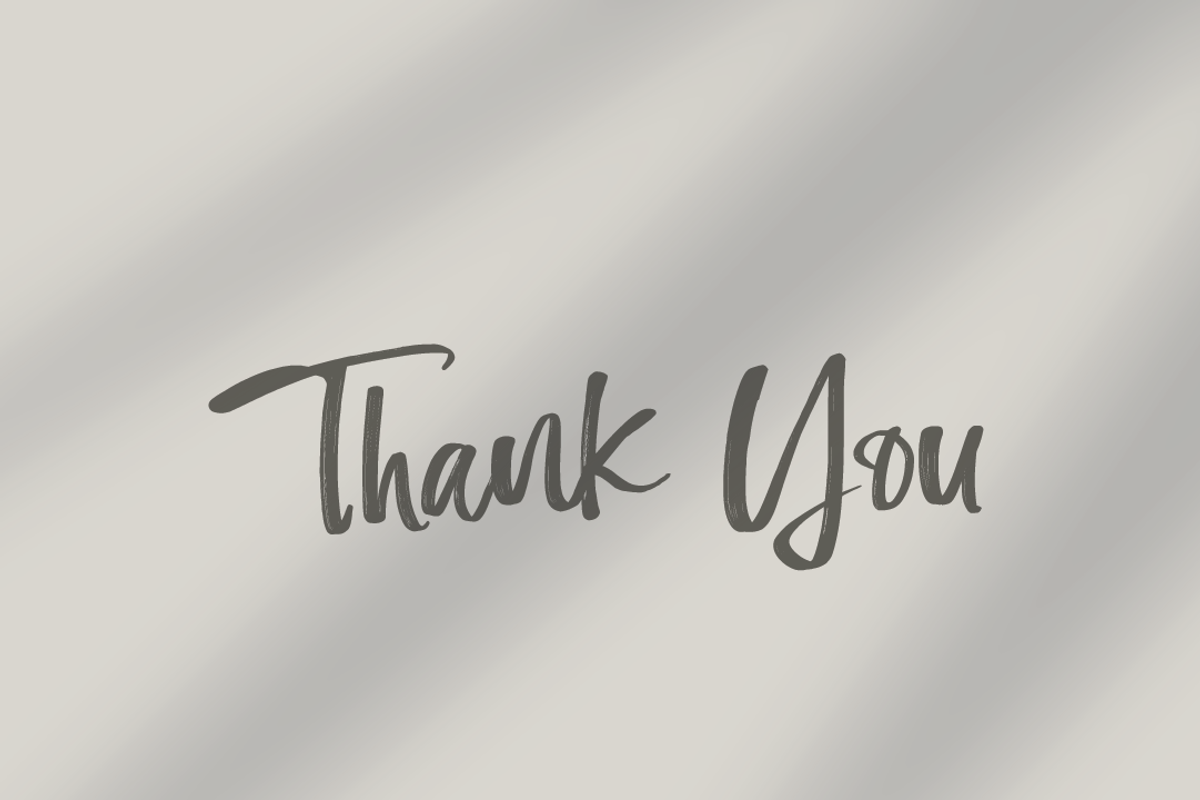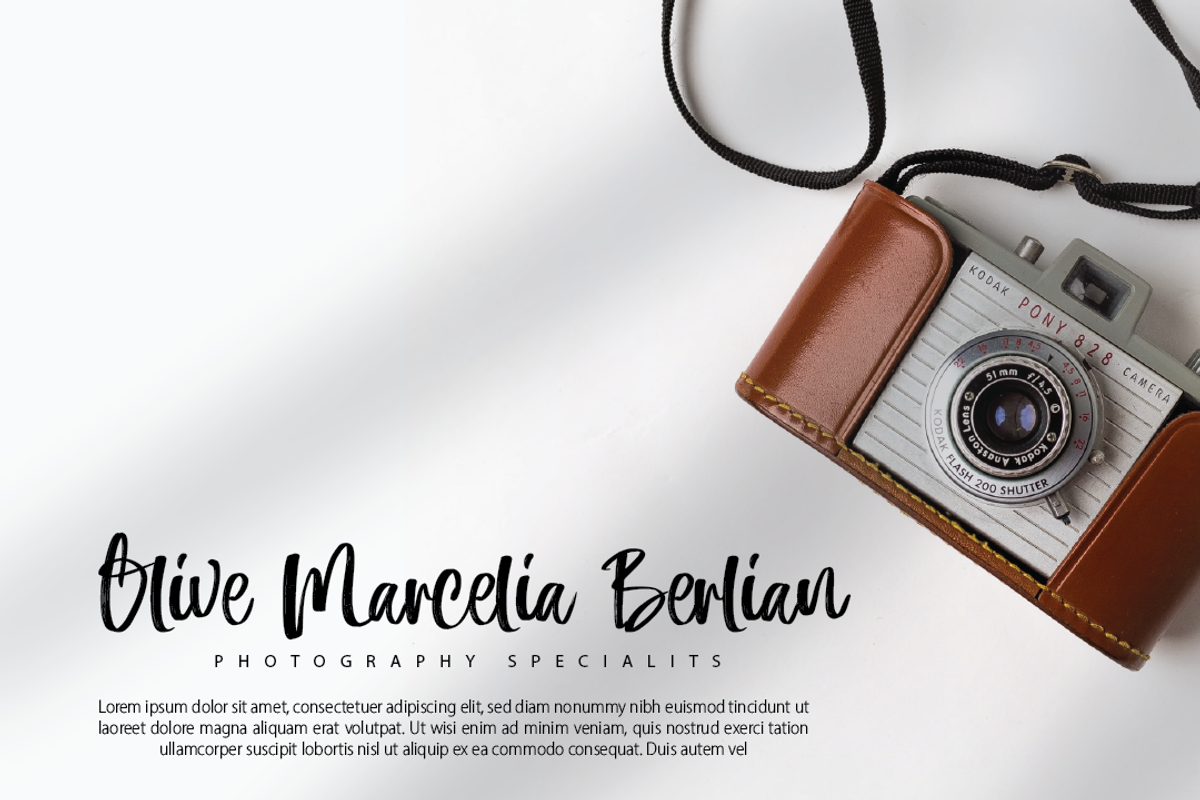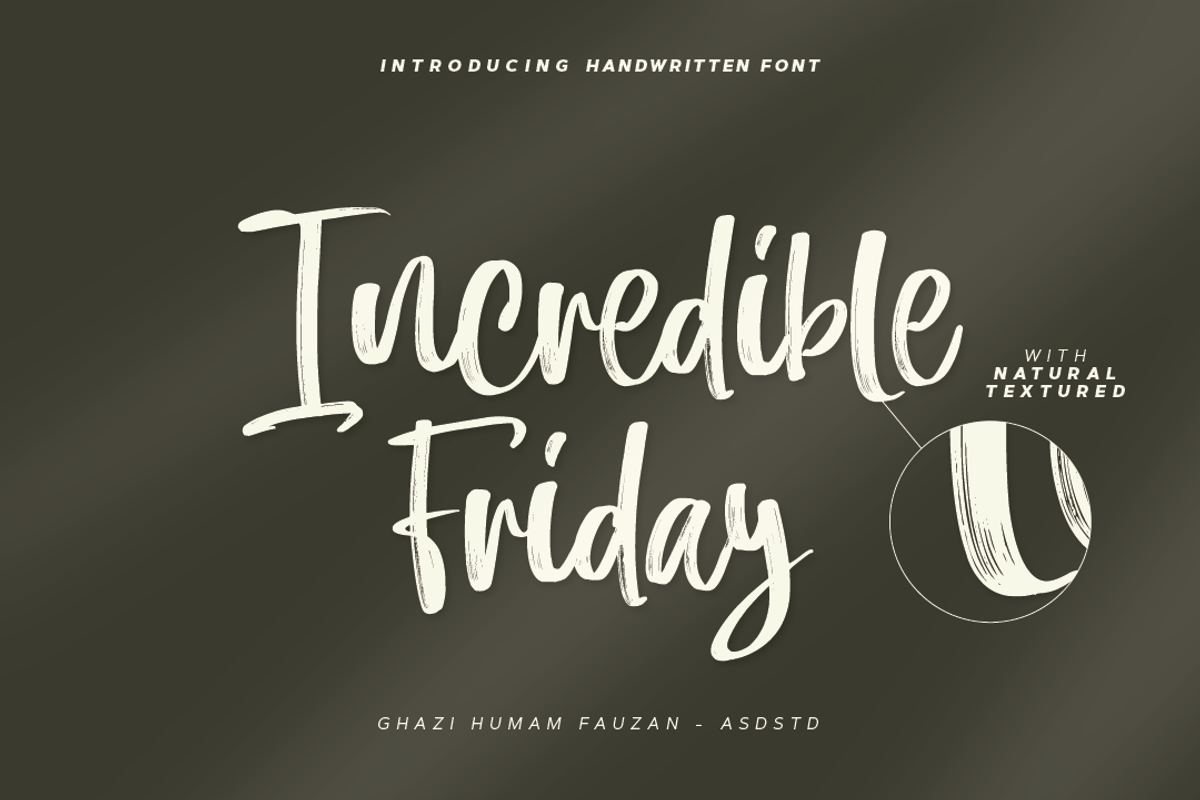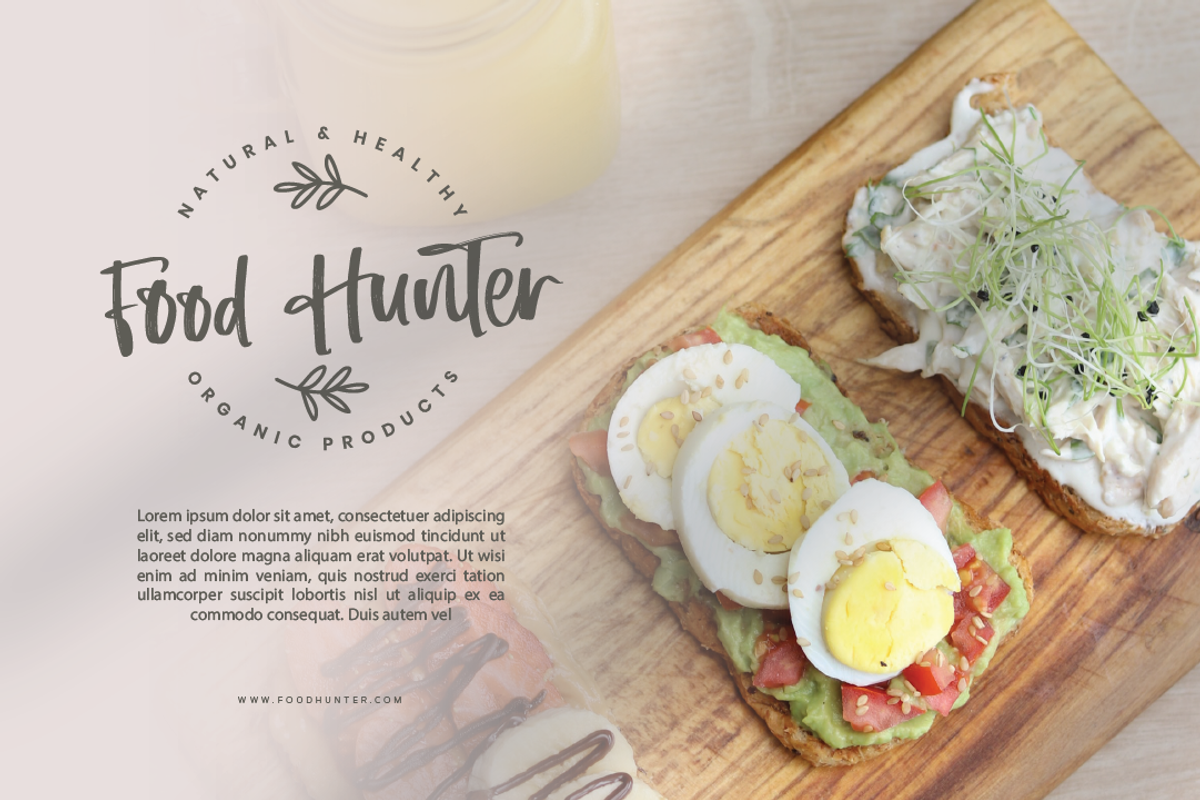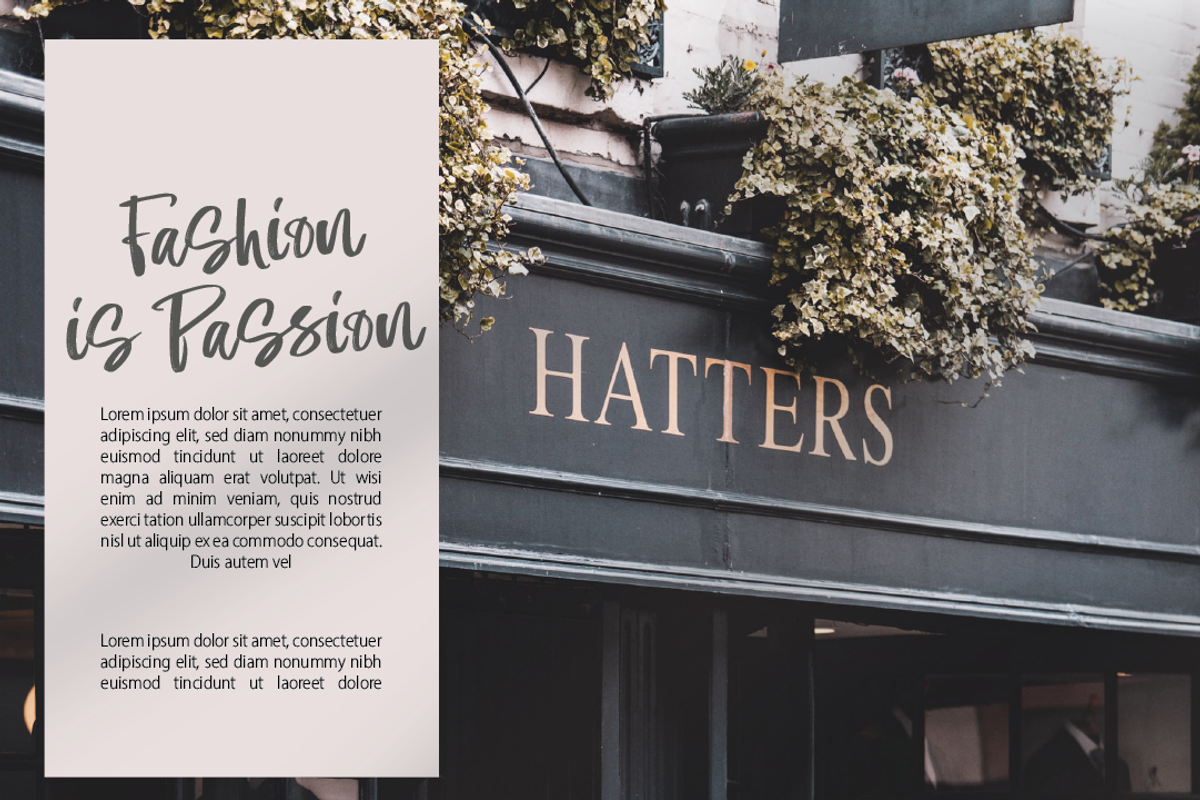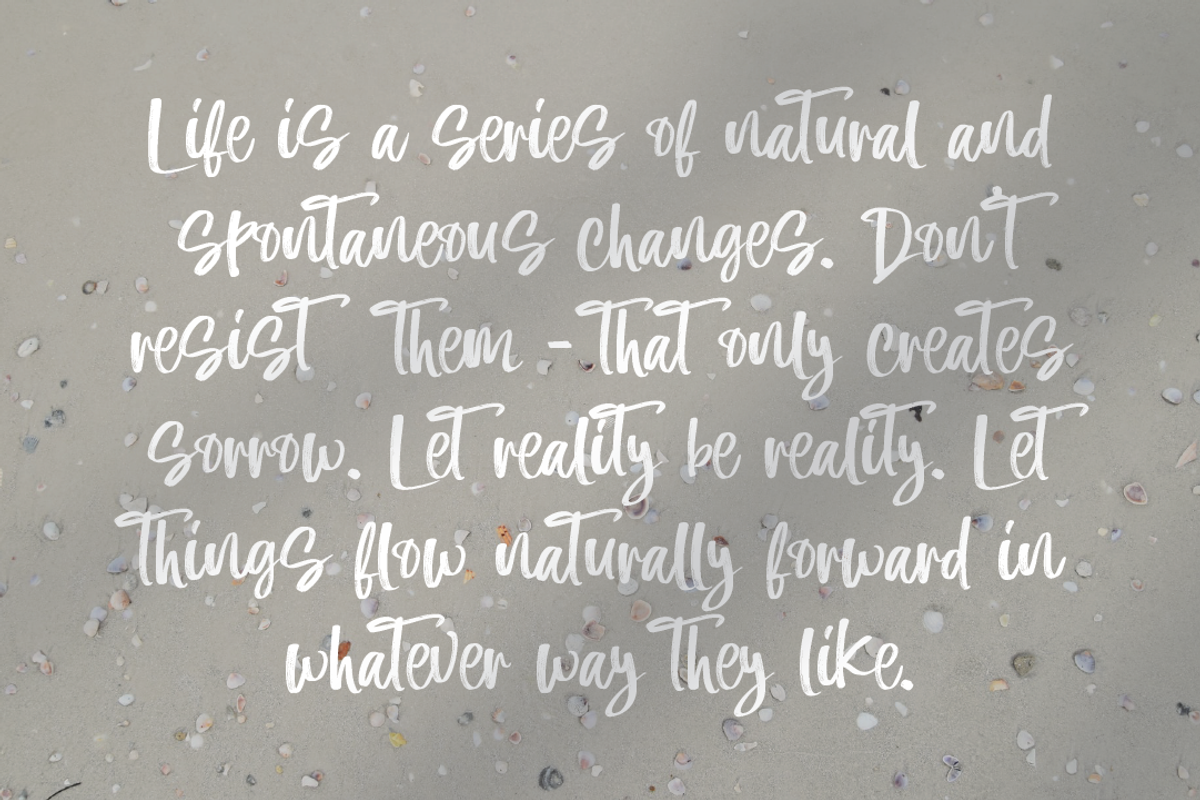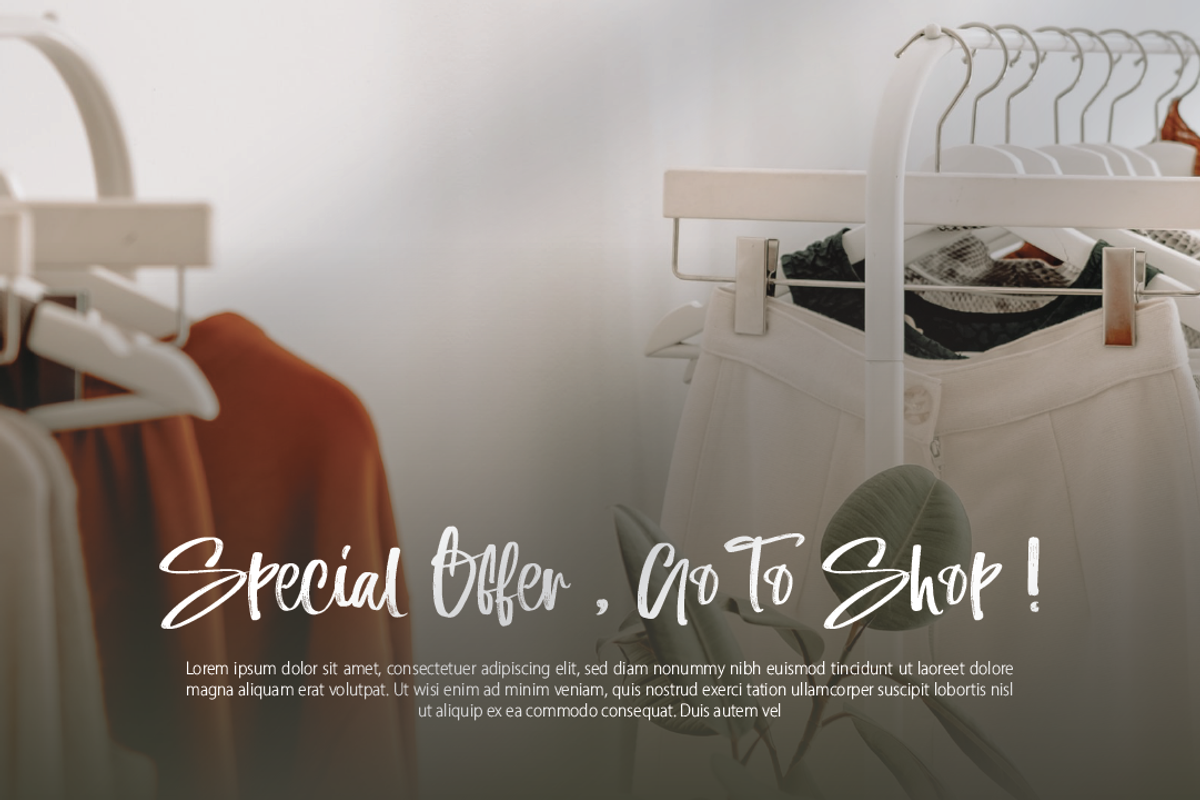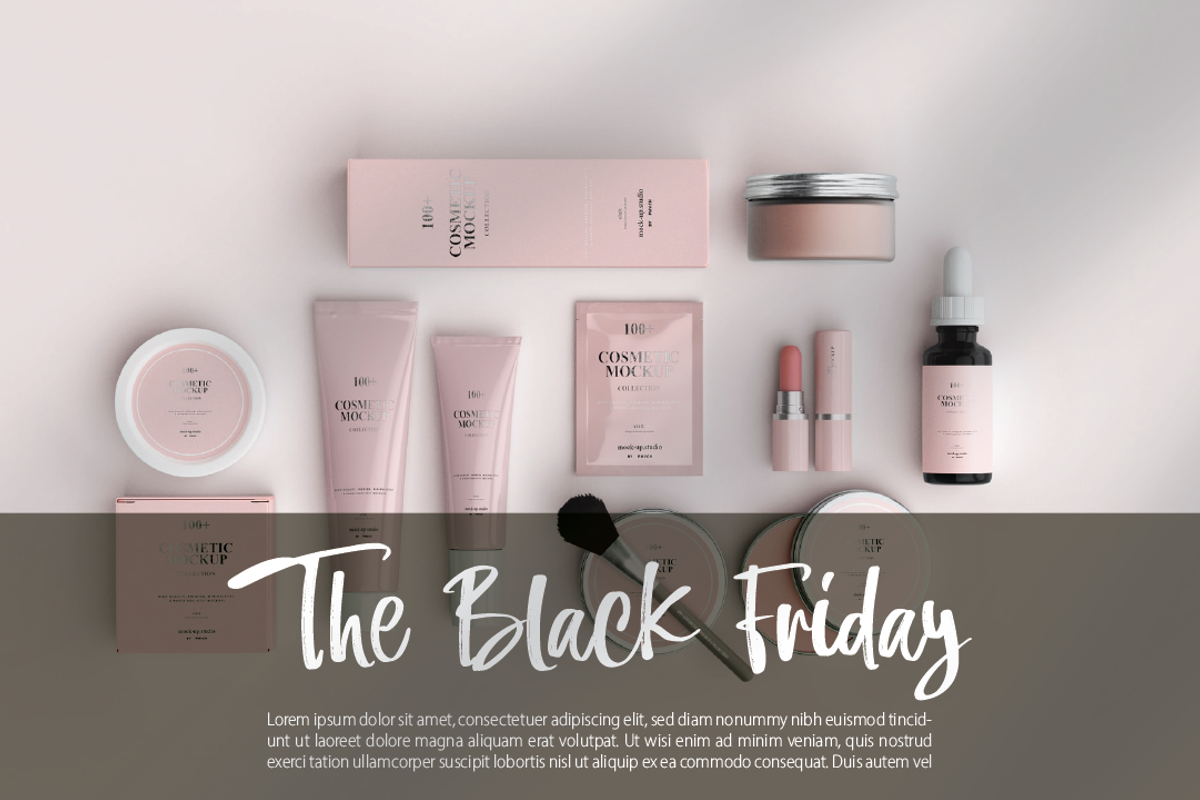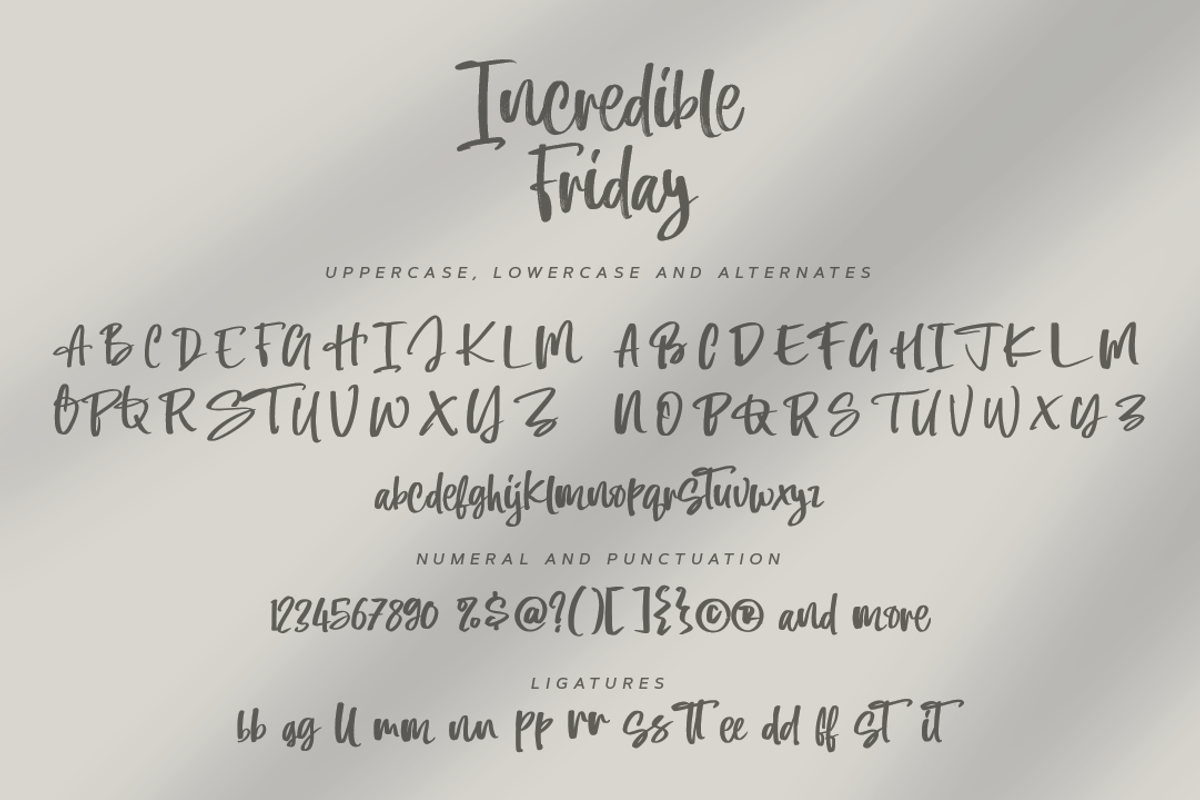
Incredible Friday - Handwritten Text
Introducing the new font Incredible Friday - Handwritten Textured Font. This font suitable for use in a variety of design fields, such as event advertisements, product promotions, mug design, book titles, activity titles, logos, and others. This font can when paired with serif font types will make your design project more beautiful and perfect.
- Number & punctuations
- Alternates and Ligatures
- Multilingual Accents